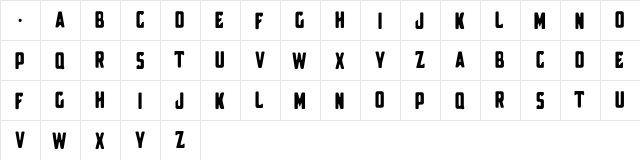
Broscoi Demo
| Foundry | Mircea Bucsa |
| Designer | Mircea Bucsa |
Design Context for Broscoi Typeface
Broscoi is a composed and adaptable typeface that performs quietly and consistently across a wide range of design contexts.